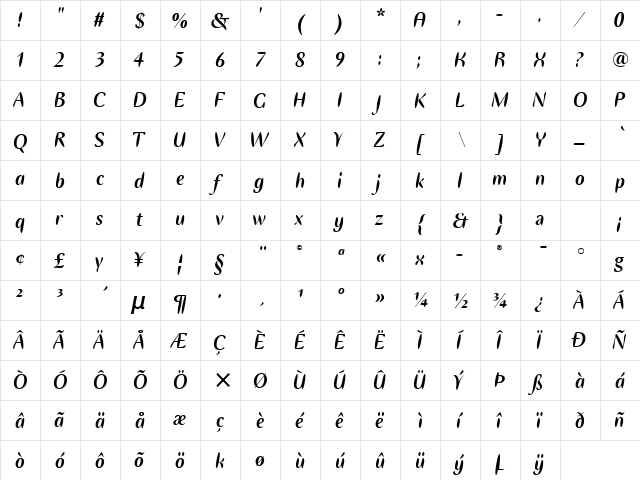
Ellipse ITC TT Bold Italic Font Preview
Design Context for Ellipse ITC TT Typeface
Ellipse ITC TT takes a measured approach to typography — its balanced proportions and neutral character make it a reliable workhorse for both digital and print work. The slanted form adds forward momentum and visual energy. The heavy weight commands attention and anchors typographic hierarchies.
Pro Tip: Try Ellipse ITC TT for annotation and caption copy alongside an upright companion — the contrast in angle creates a dynamic but ordered typographic system.